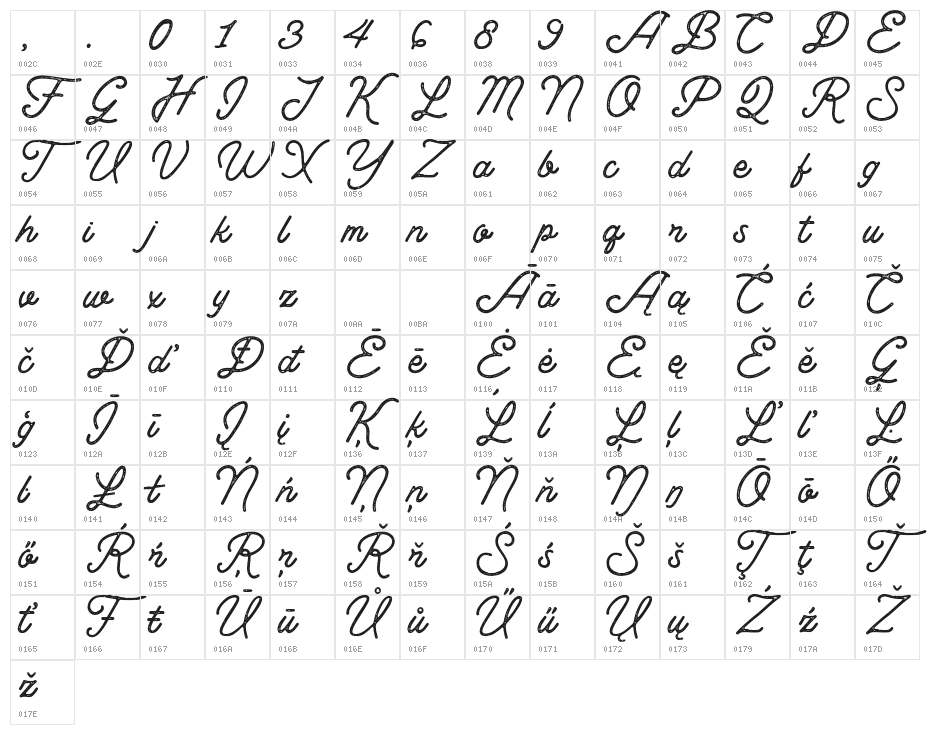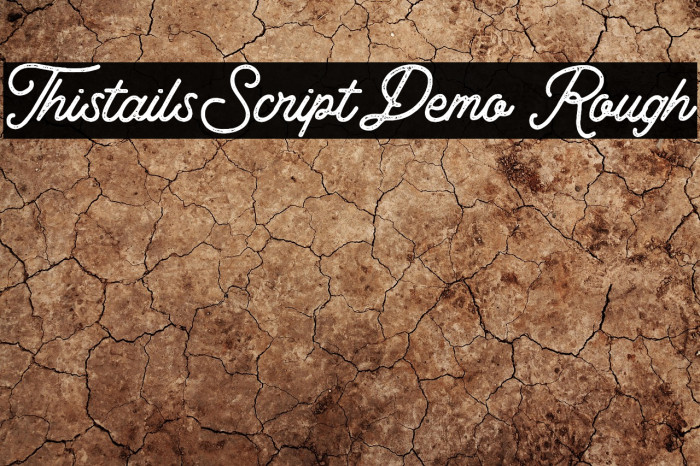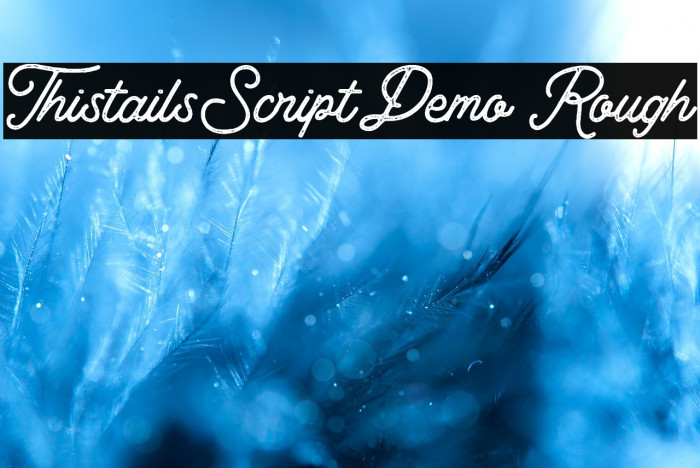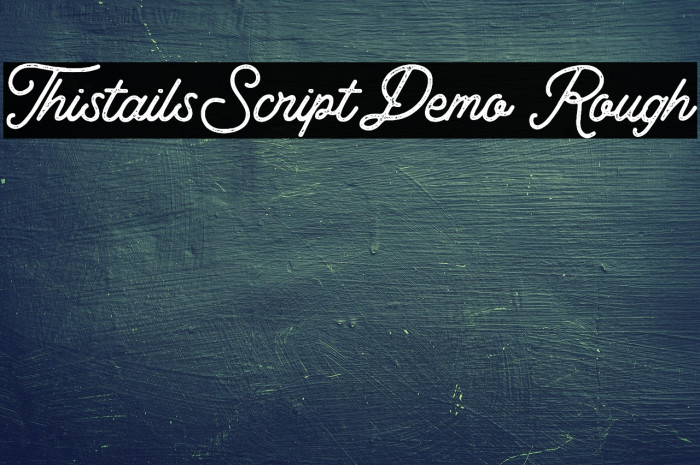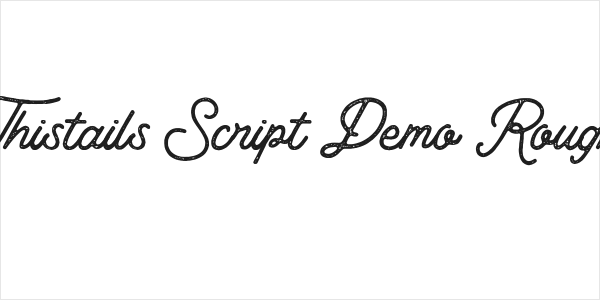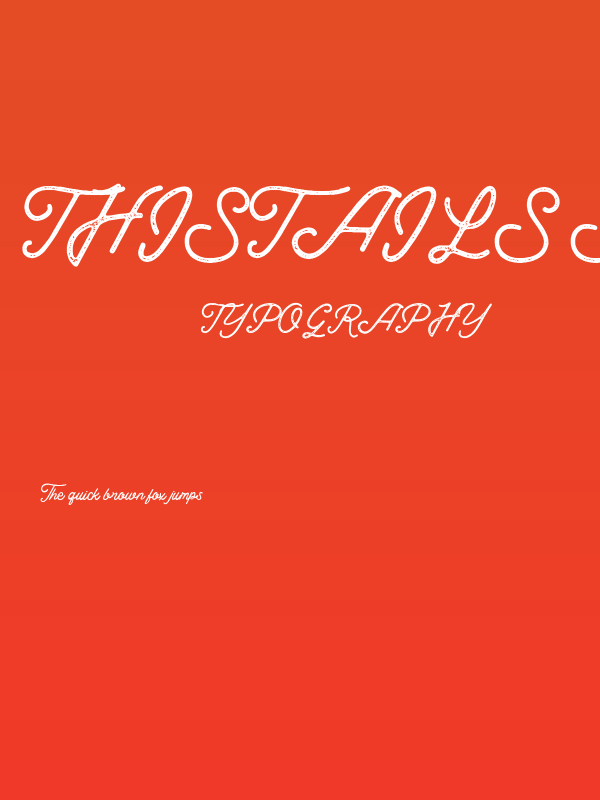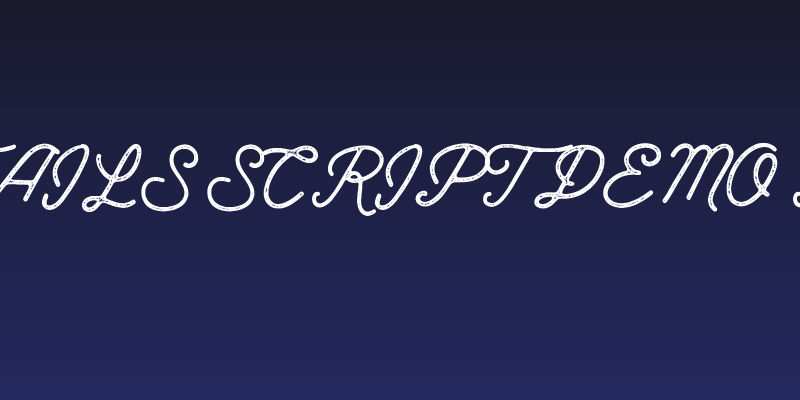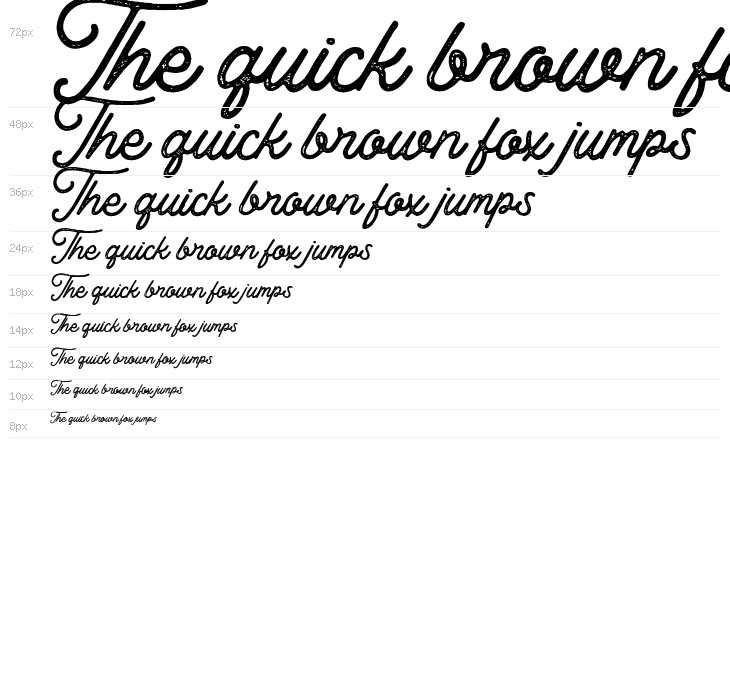
Thistails_Script_Demo Rough Font
Thistails_Script_Demo Rough Description
This font features a playful and dynamic script style with a rough texture that gives it a hand-drawn appearance. The uppercase letters are elegantly curved, maintaining a consistent flow throughout. The lowercase letters are slightly more casual, with a smooth, connected style that enhances readability. Numbers and special characters maintain the same textured, hand-crafted look, adding to the font's unique personality. The overall design is reminiscent of vintage signage or personal handwritten notes, making it both charming and approachable.
| Overall Style | Vintage |
| Use Case | Logos, Headlines, Invitations |
| Proposed Projects | Ideal for greeting cards, invitations, branding projects, and any design that requires a personal touch. |